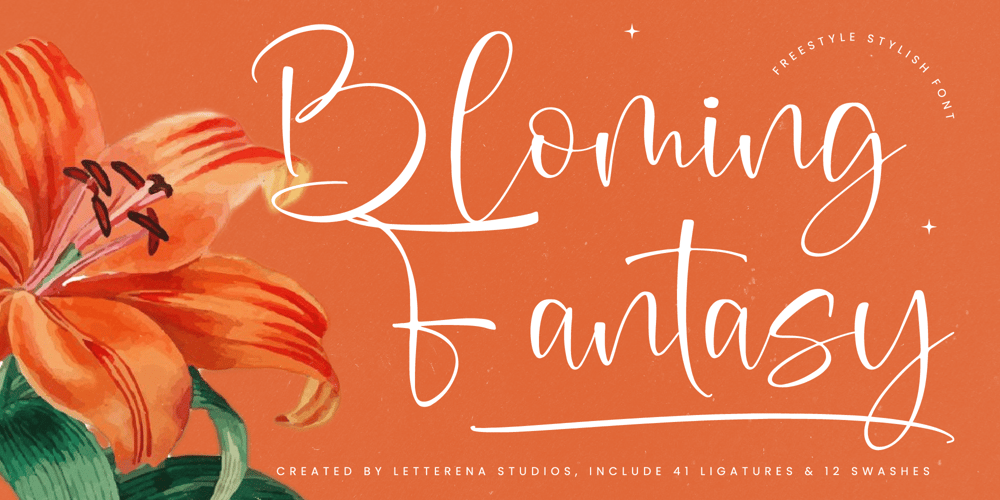
Bloming Fantasy
Bloming Fantasy font
Bloming Fantasy Font Family was designed by Heru Utama Putra and published by Letterena Studios. Bloming Fantasy contains 2 styles and family package options. Bloming Fantasy is a modern and charming handwritten font that exudes elegance and personality. Its graceful, flowing strokes and sophisticated character make it perfect for upscale invitations, personal branding, and chic editorial designs. Elevate your projects with the refined allure and warmth of this font.